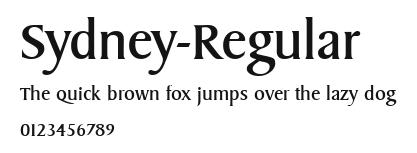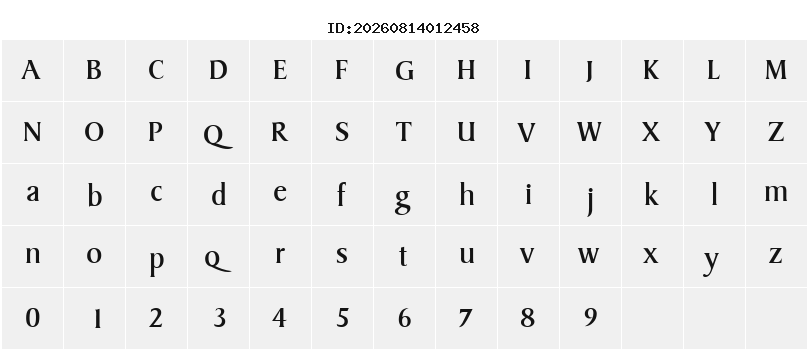
About Sydney-Regular.ttf
Sydney-Regular.ttf is a modern, elegant sans-serif font designed for ultimate readability and visual harmony. Perfect for branding, headlines, web design, and print materials.